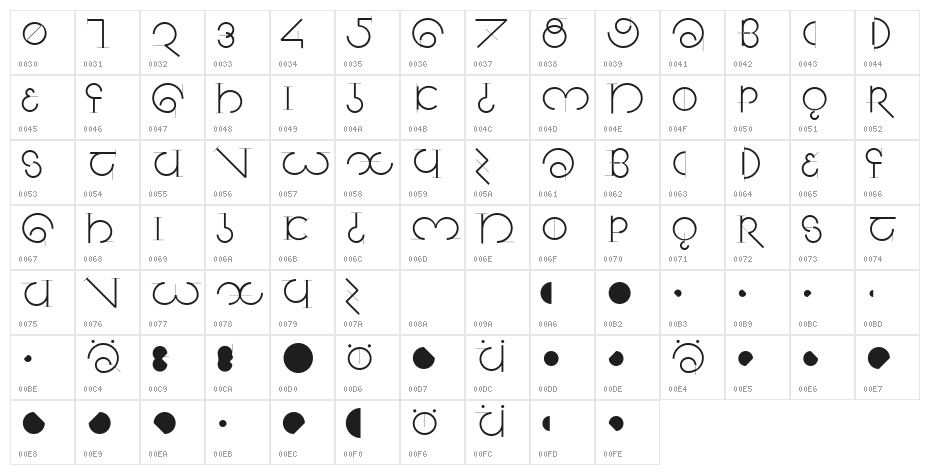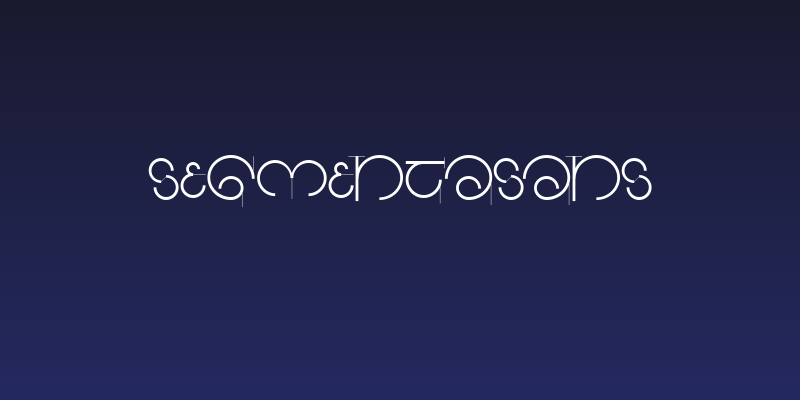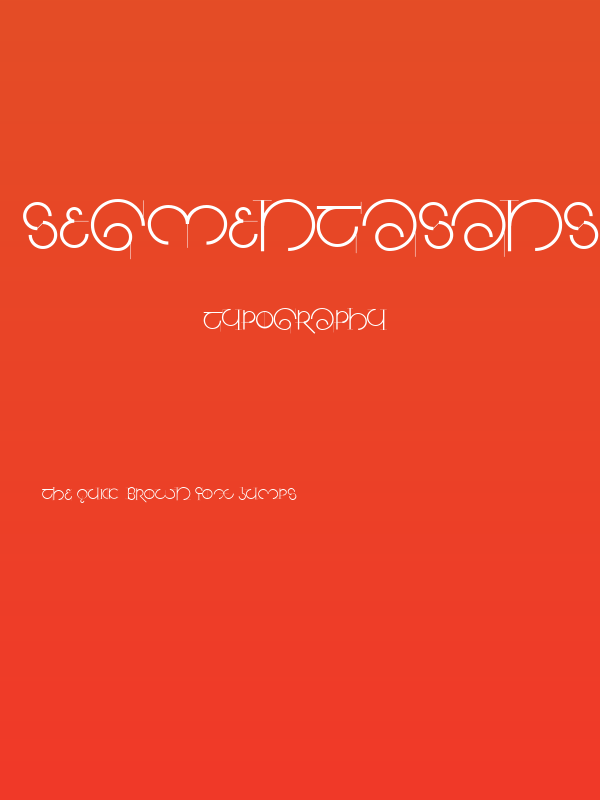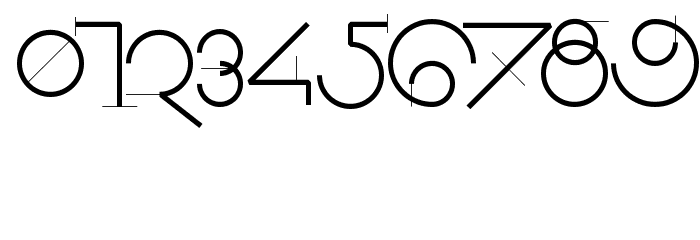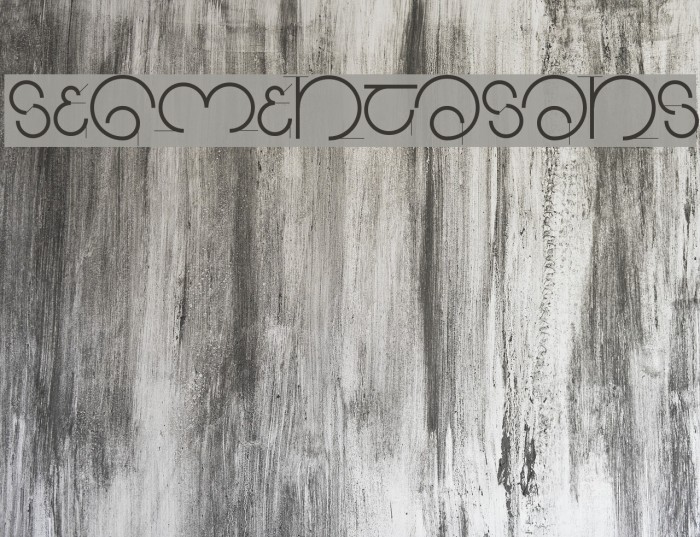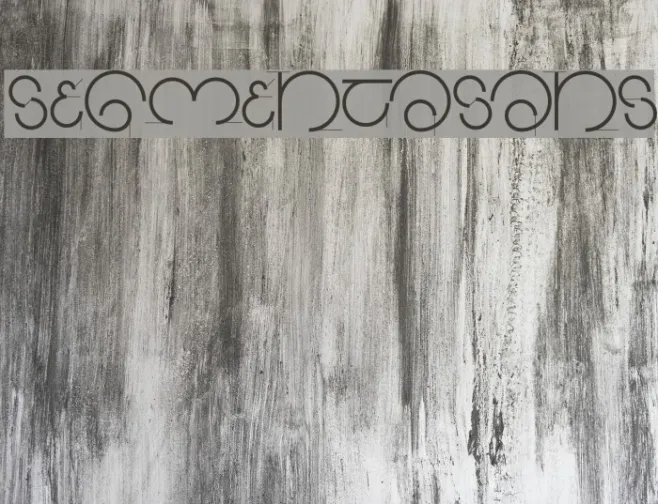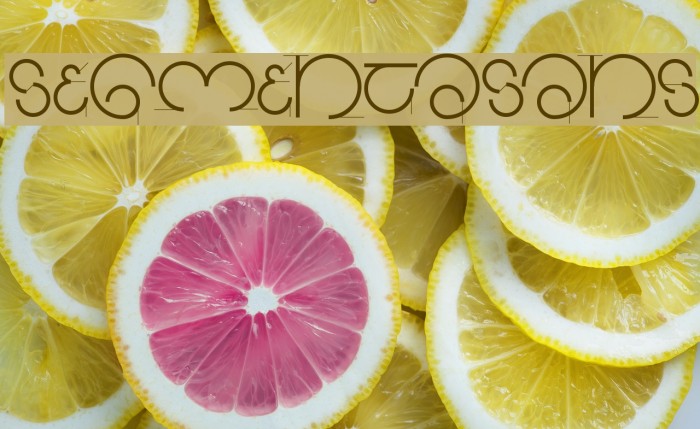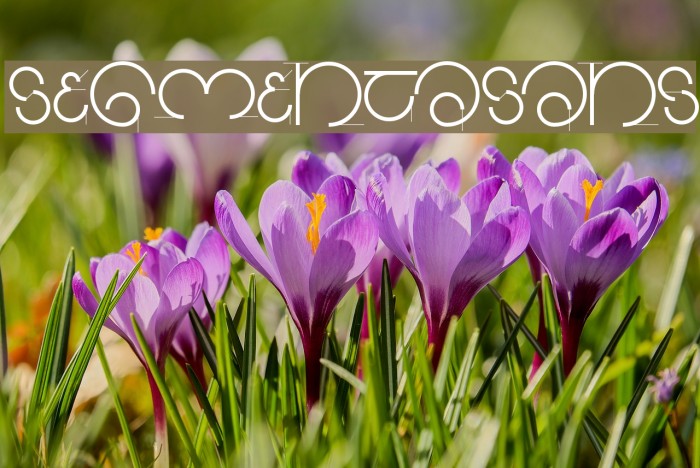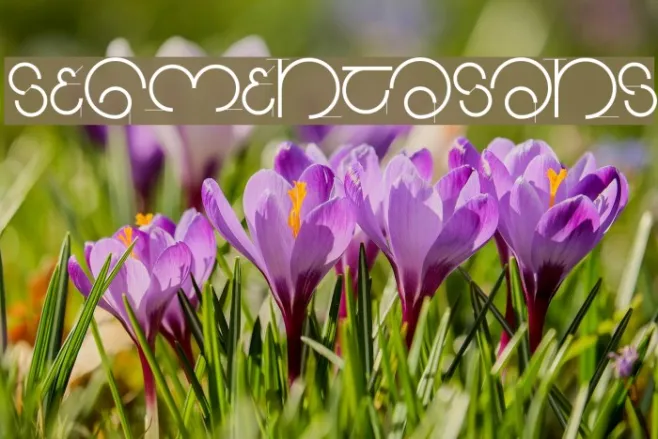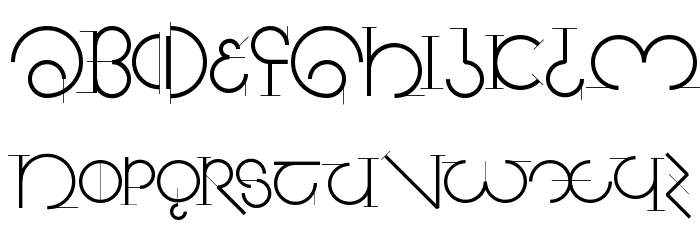
SegmentaSans Font
SegmentaSans Description
This font features a unique and modern design with geometric elements and sharp angles. The characters are constructed with a combination of circular and linear strokes, creating a futuristic and artistic appearance. The uppercase and lowercase letters maintain a consistent style, with distinct curves and lines that give the font a dynamic and engaging look. The numerals and special characters follow the same design principles, ensuring a cohesive visual identity. This font is ideal for projects that require a bold and innovative aesthetic, making it suitable for branding, advertising, and creative design work.